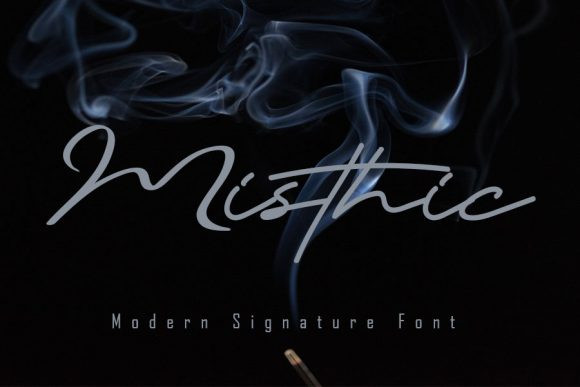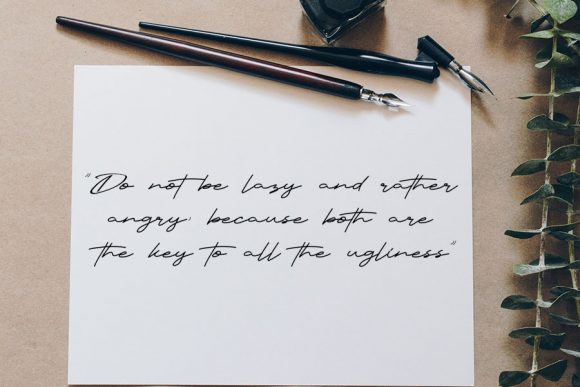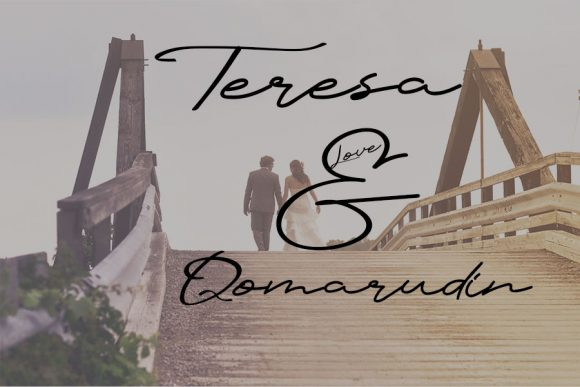
Misthic Font
Misthic is an incredibly modern and cursive script font. Masterfully designed to become a true favorite, this font has the potential to bring each of your creative ideas to the highest level!